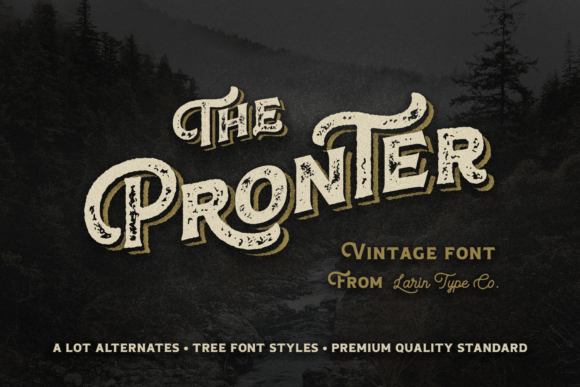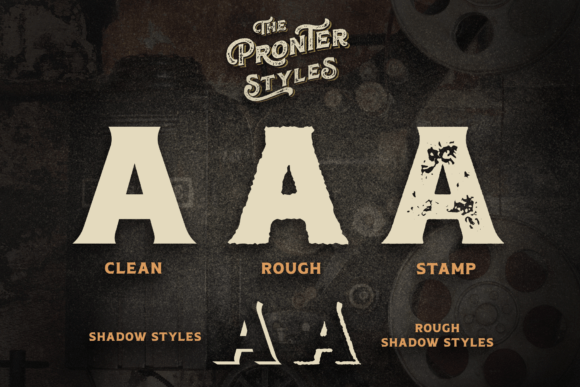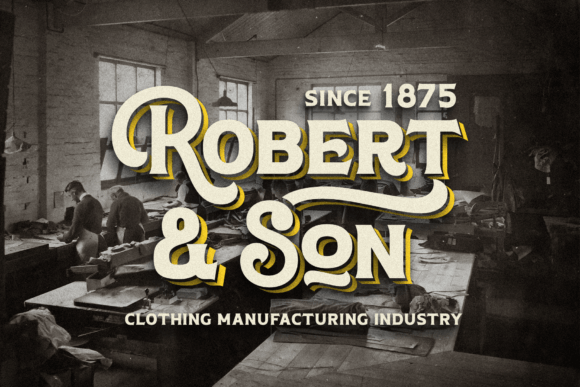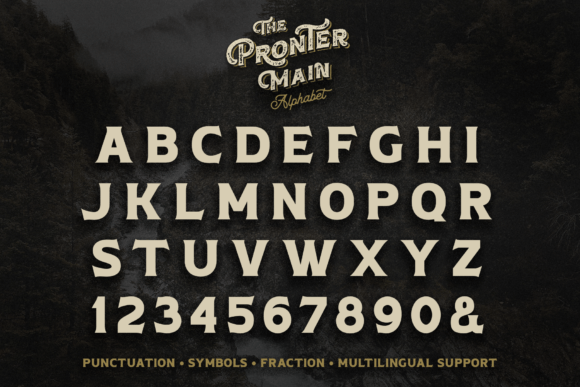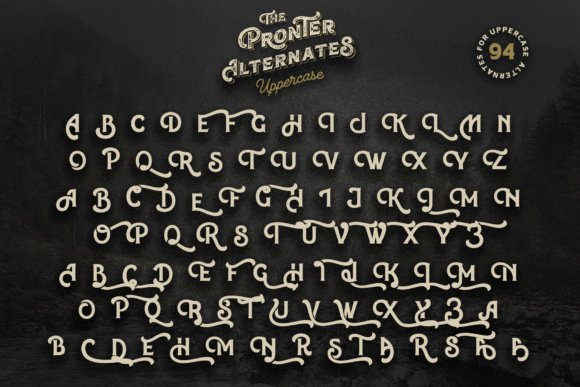
Pronter Font
Pronter is a stunning vintage font that comes in three styles: Regular, Rough, and Stamp style, and also includes two font styles: shadow and rough shadow. This font contains many alternates, so make them up to the extent that your design’s creativity is enough. Pronter font is versatile it can be used both in modern projects and in vintage ones, as a main or additional one. This font is easy to use and has OpenType features.